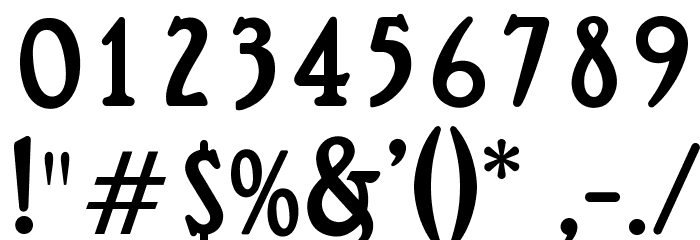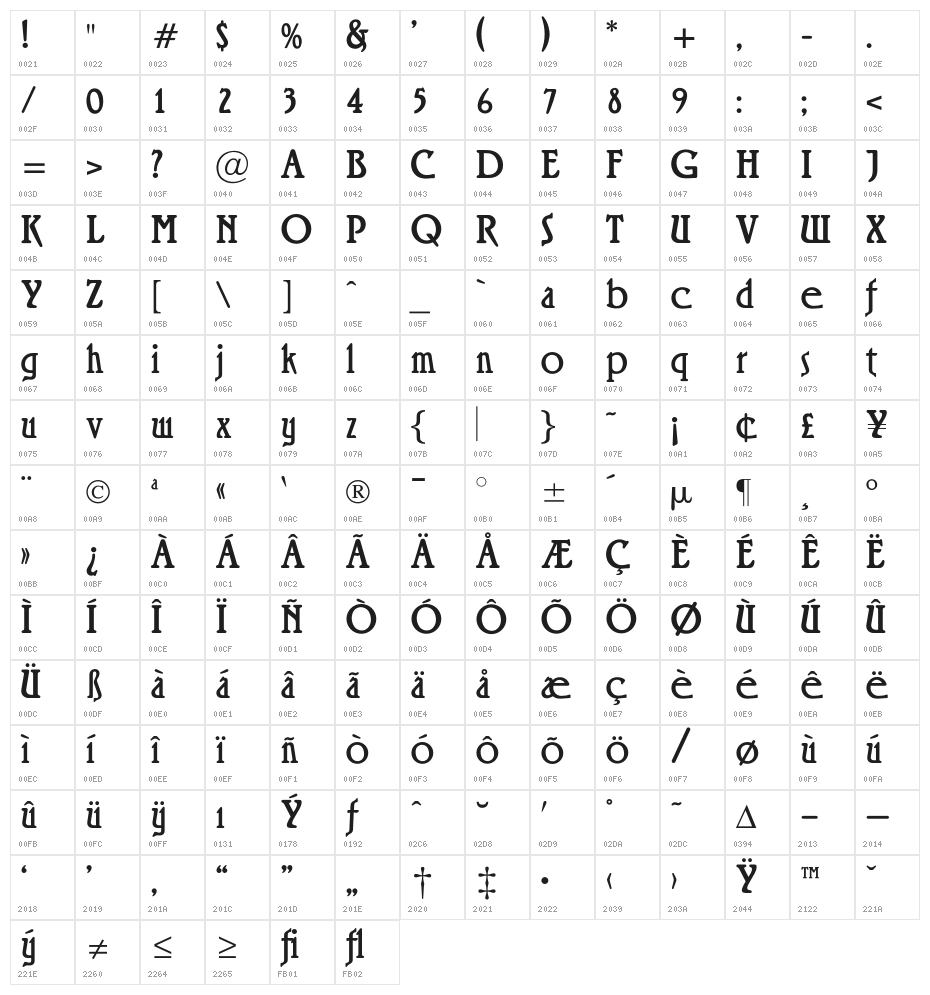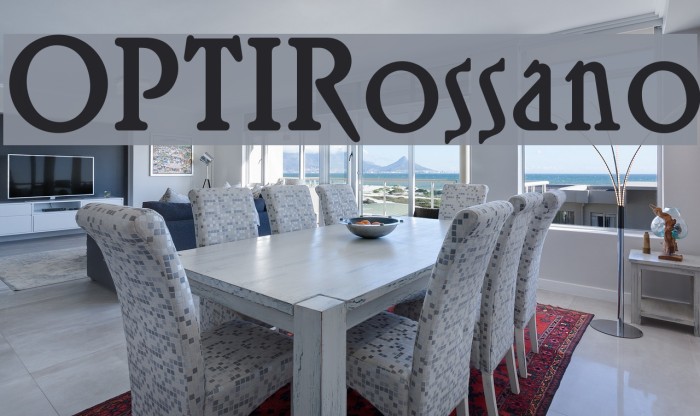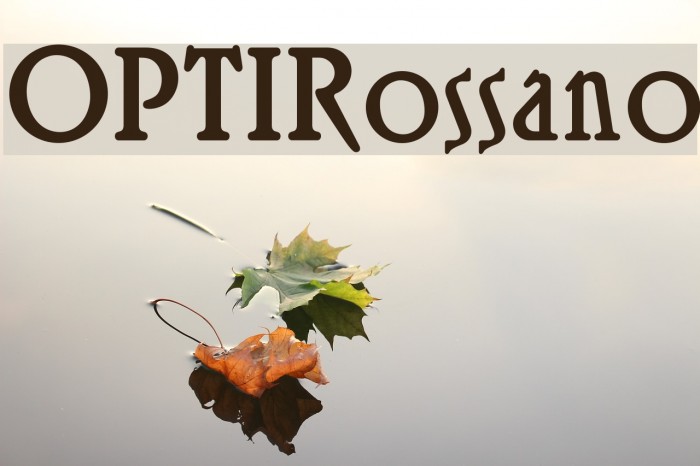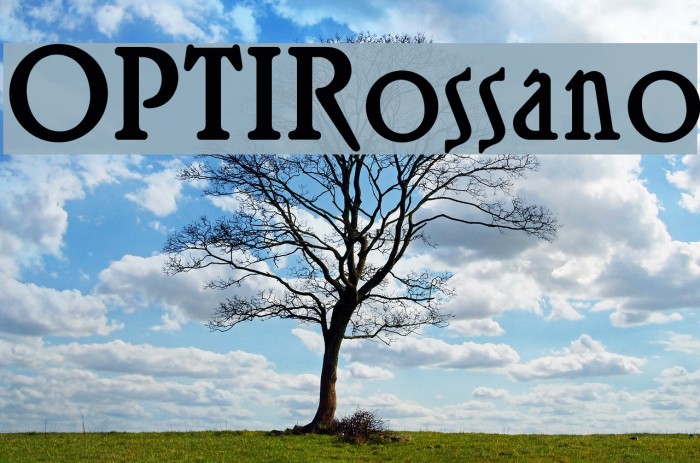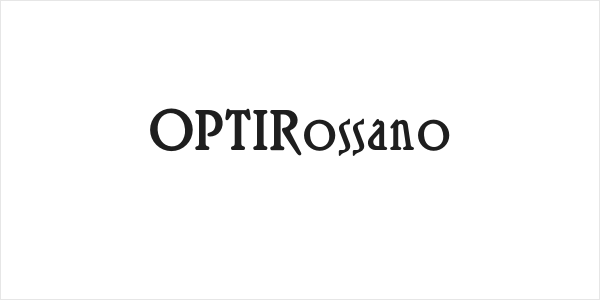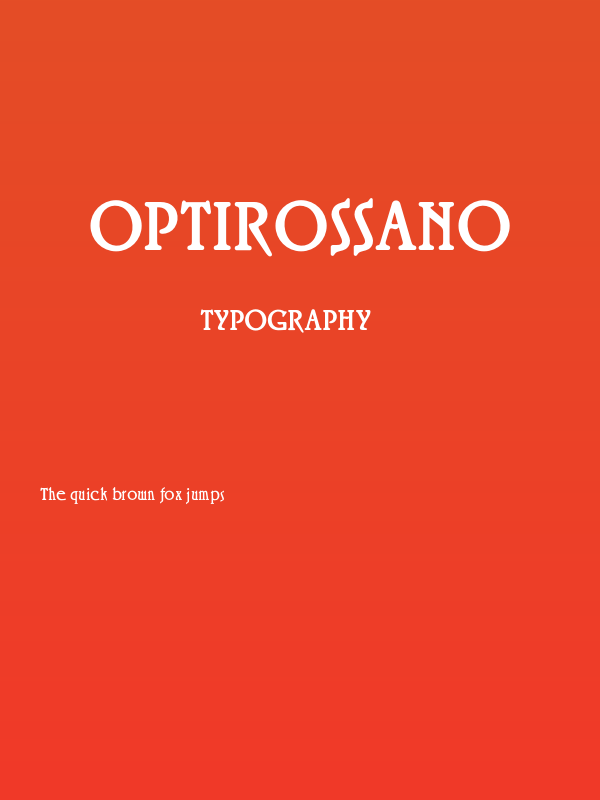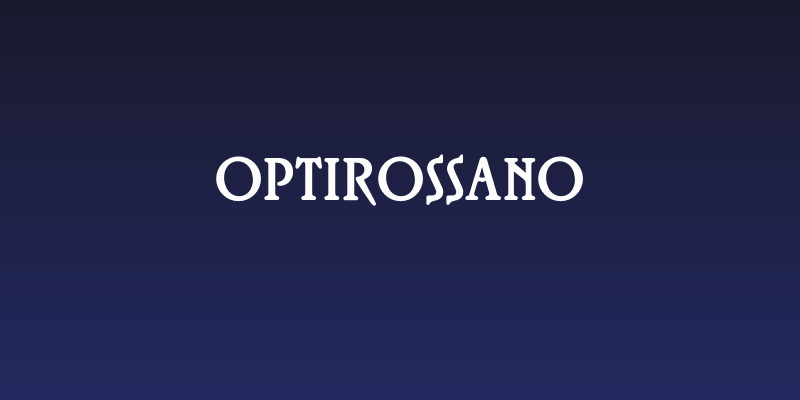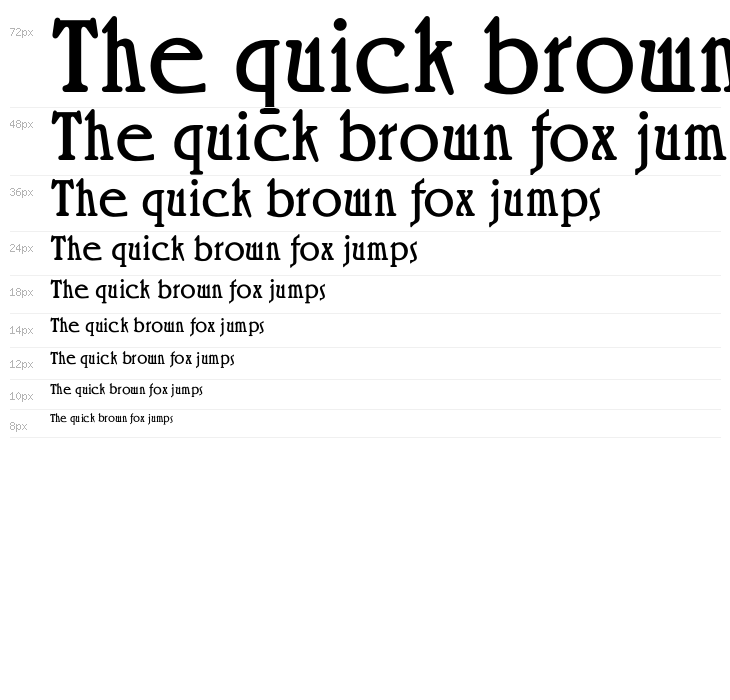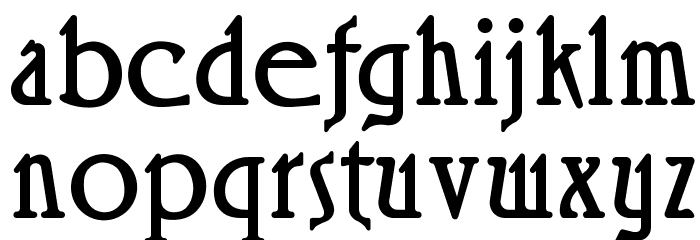
OPTIRossano Font
OPTIRossano Description
This font features a distinctive and artistic style with a blend of traditional and modern elements. The uppercase letters are bold and slightly condensed, with unique serifs that add a touch of elegance. The lowercase letters maintain a consistent style, with some characters featuring playful curves and angles. The numerals are clear and legible, with a slight flair that matches the overall aesthetic. Special characters are well-integrated, maintaining the font's cohesive look. The font's design is versatile, making it suitable for a variety of creative projects.